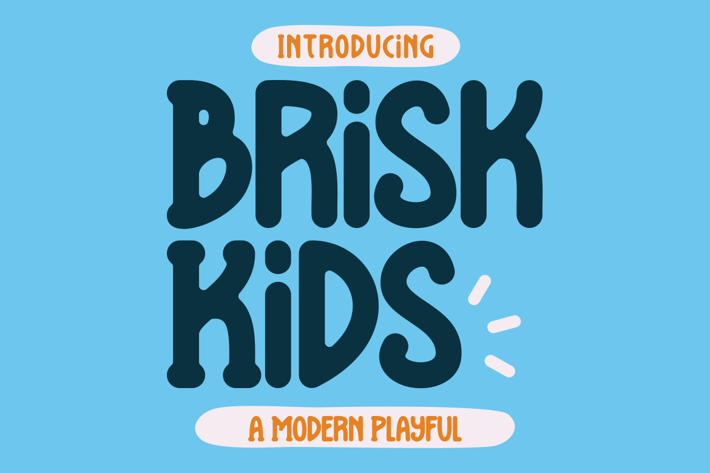
Brisk Kids Font
Introducing our new product Brisk Kids Font - Modern Handwritten Font
Brisk Kids Font - Modern Handwritten Font is a bold and authentic display font. The font is suitable for any branding project like logo, t-shirt printing, and many more. outstanding in a wide range of contexts.